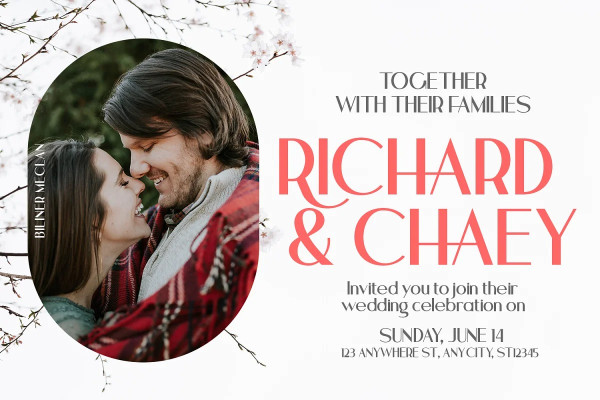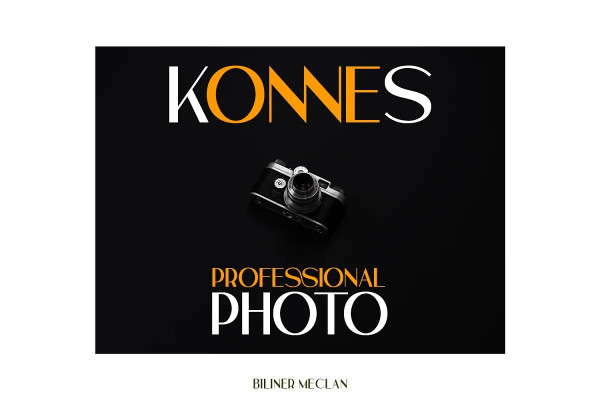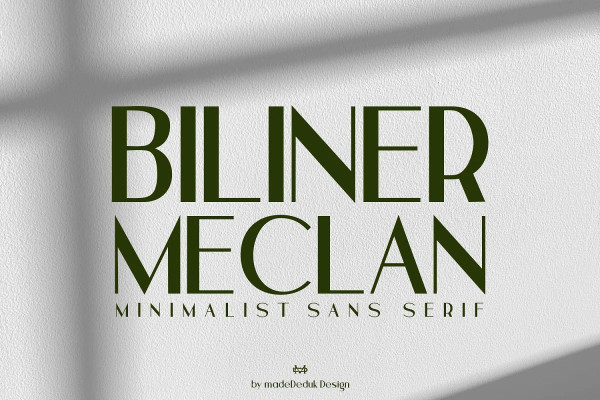
Biliner Meclan Font
Biliner Meclan Font is a Minimalist Sans, use this font for any branding, product packaging, invitation, fashion, label, poster, logo etc.